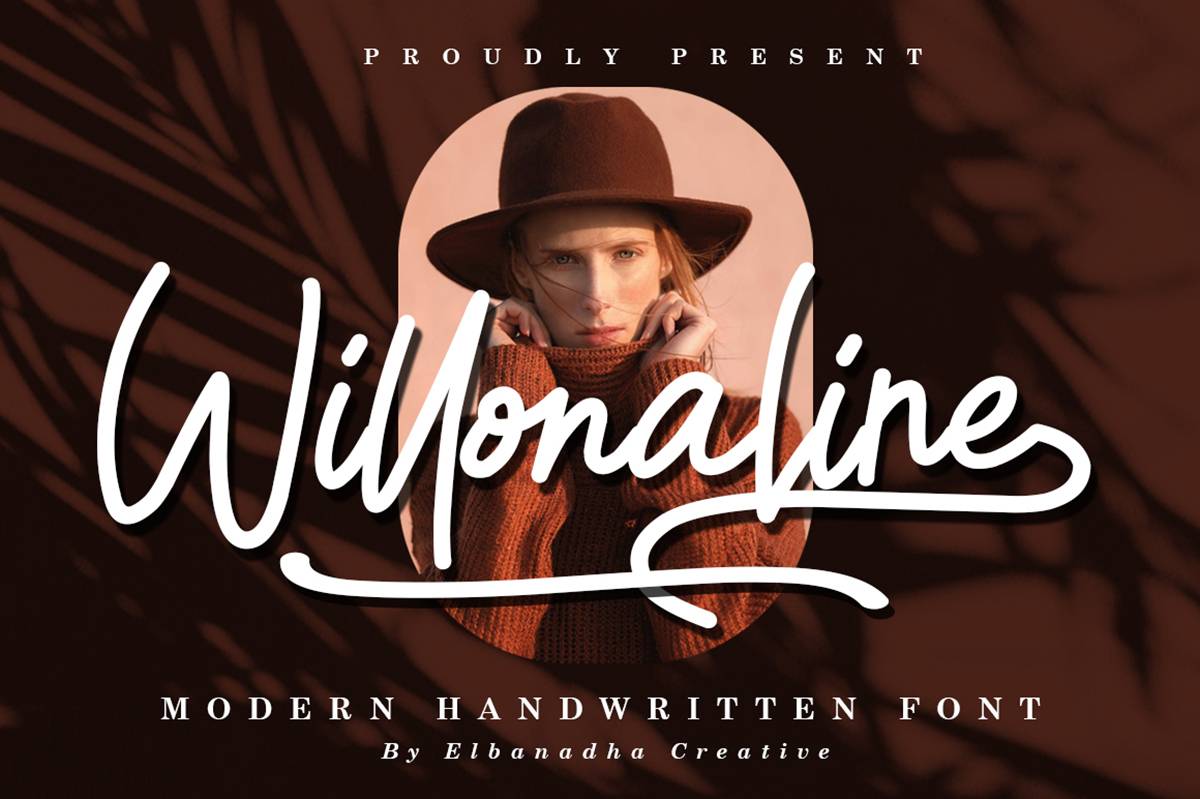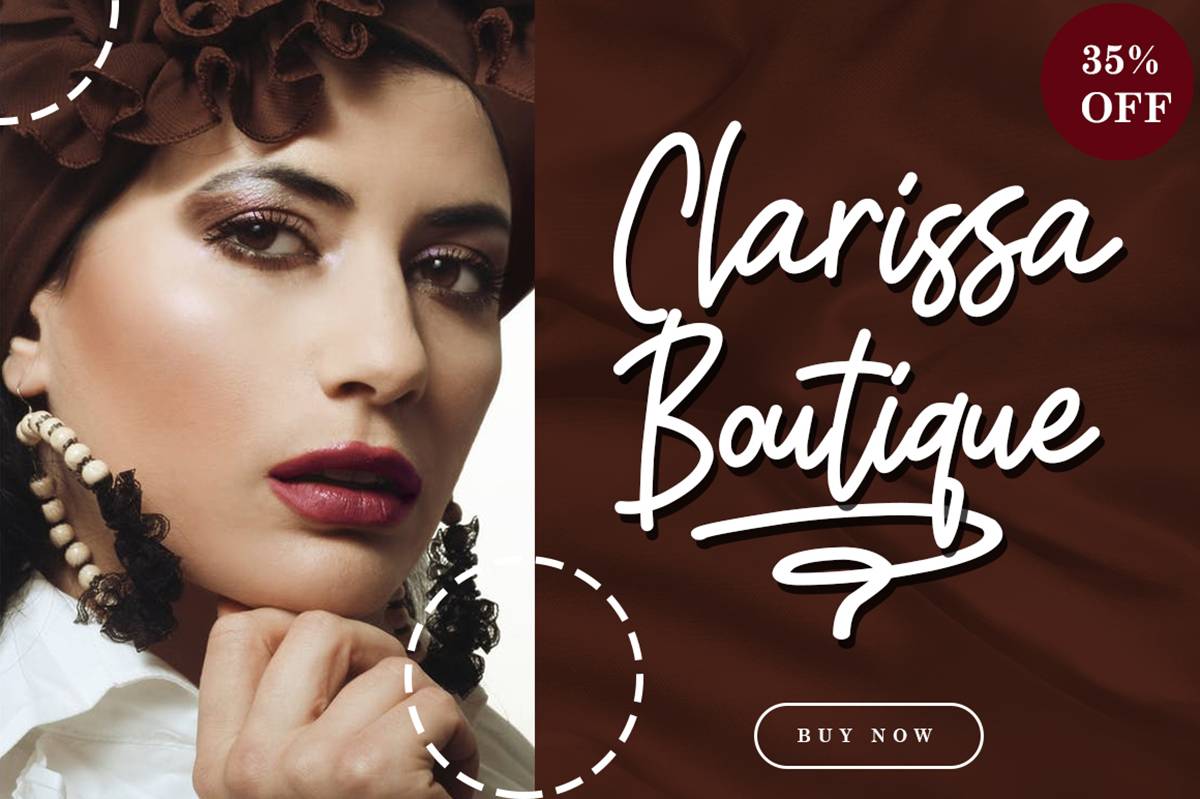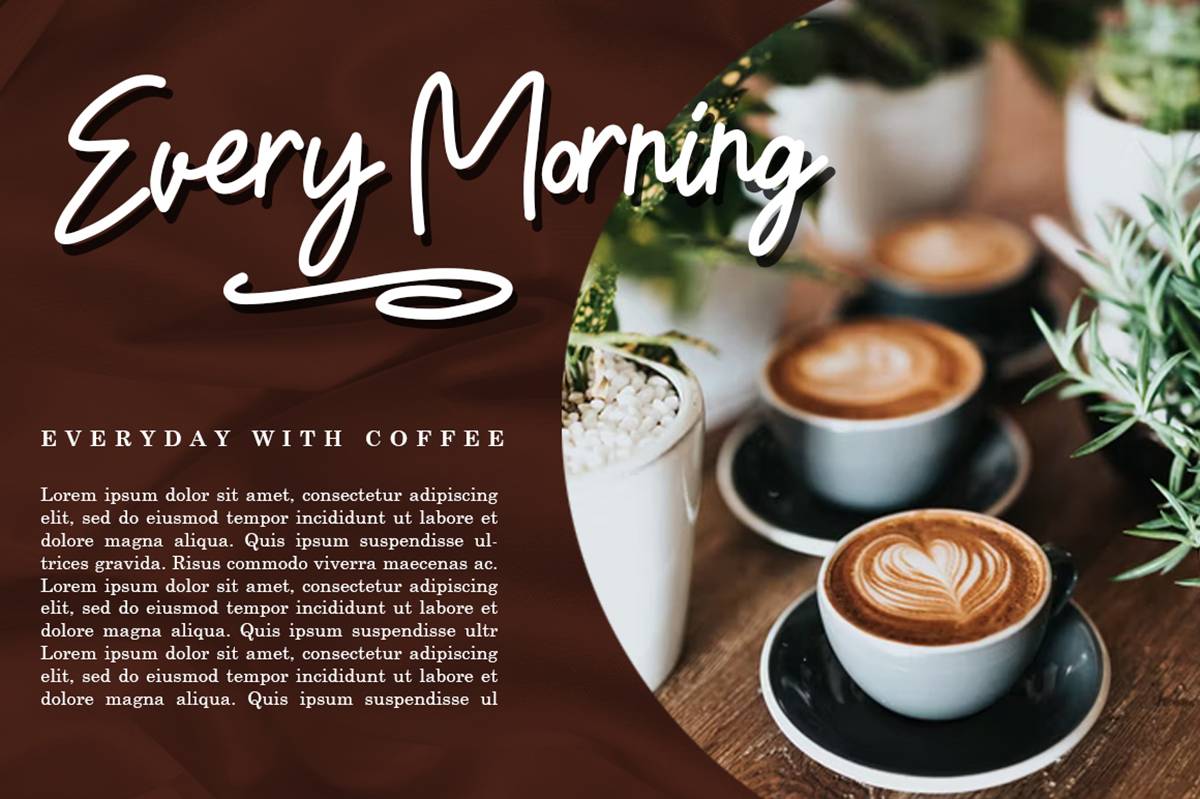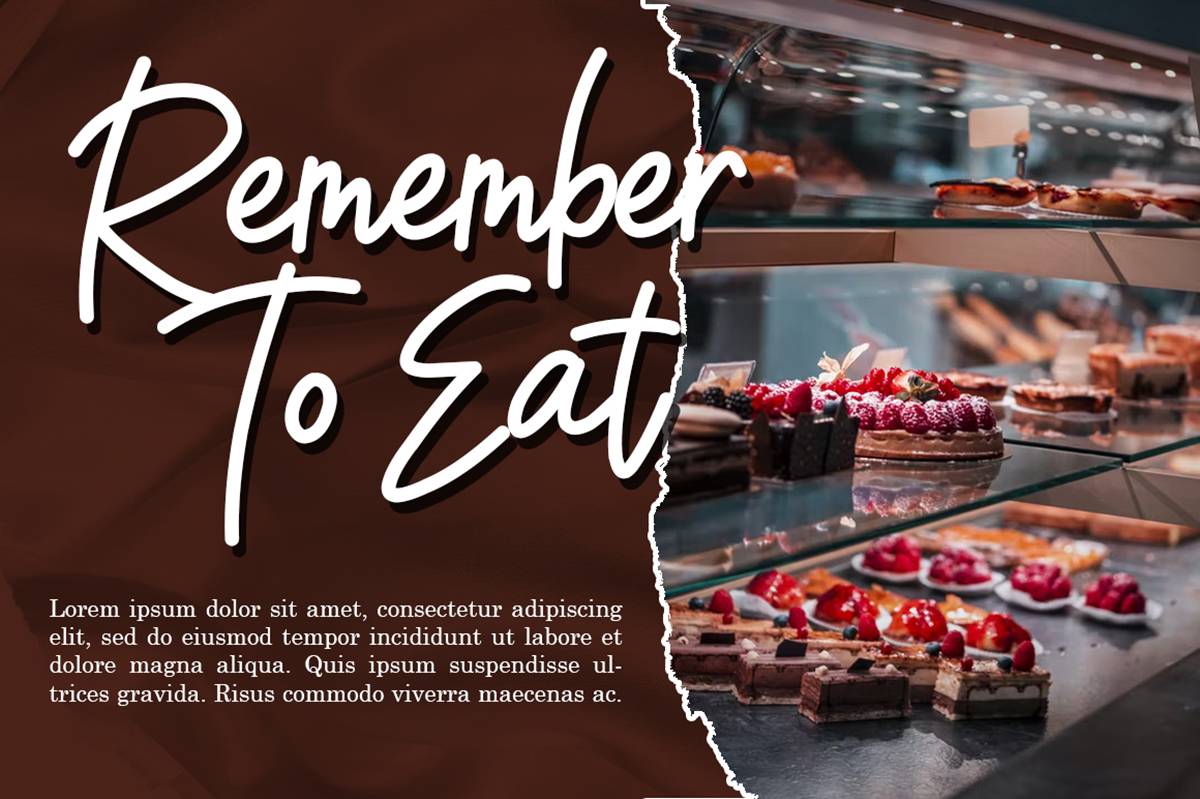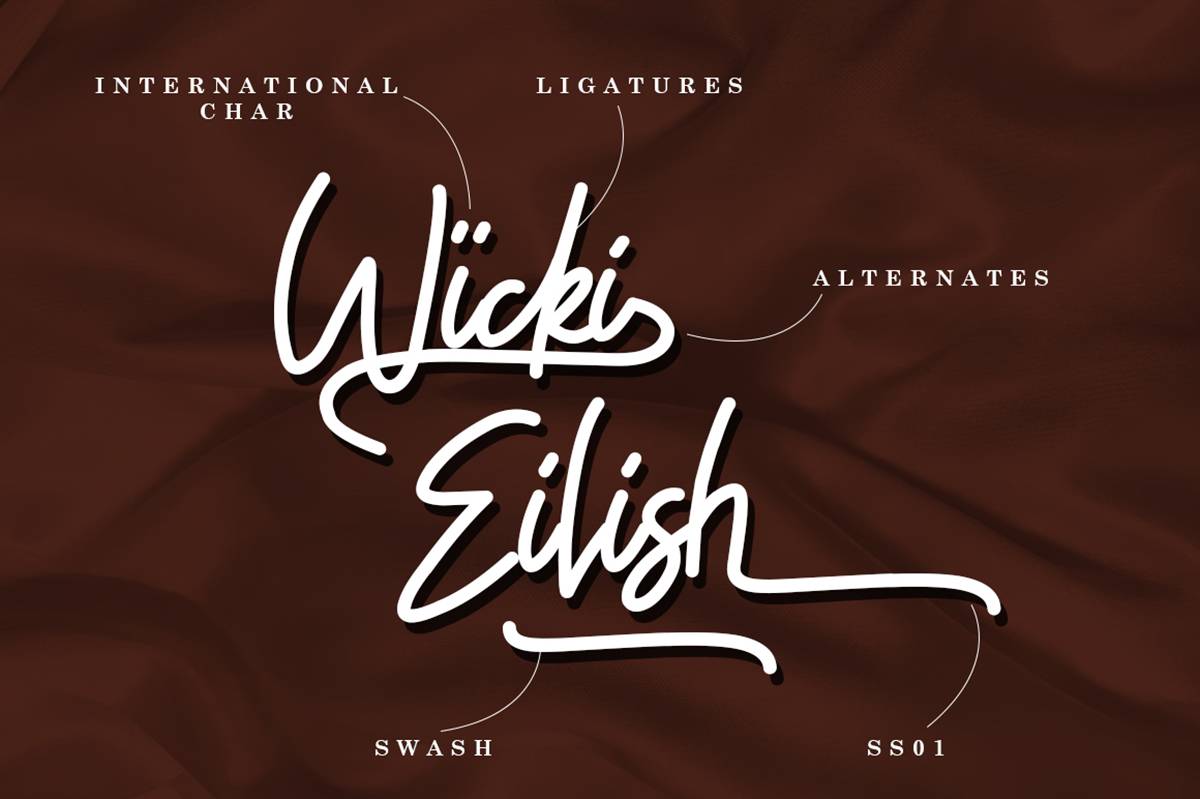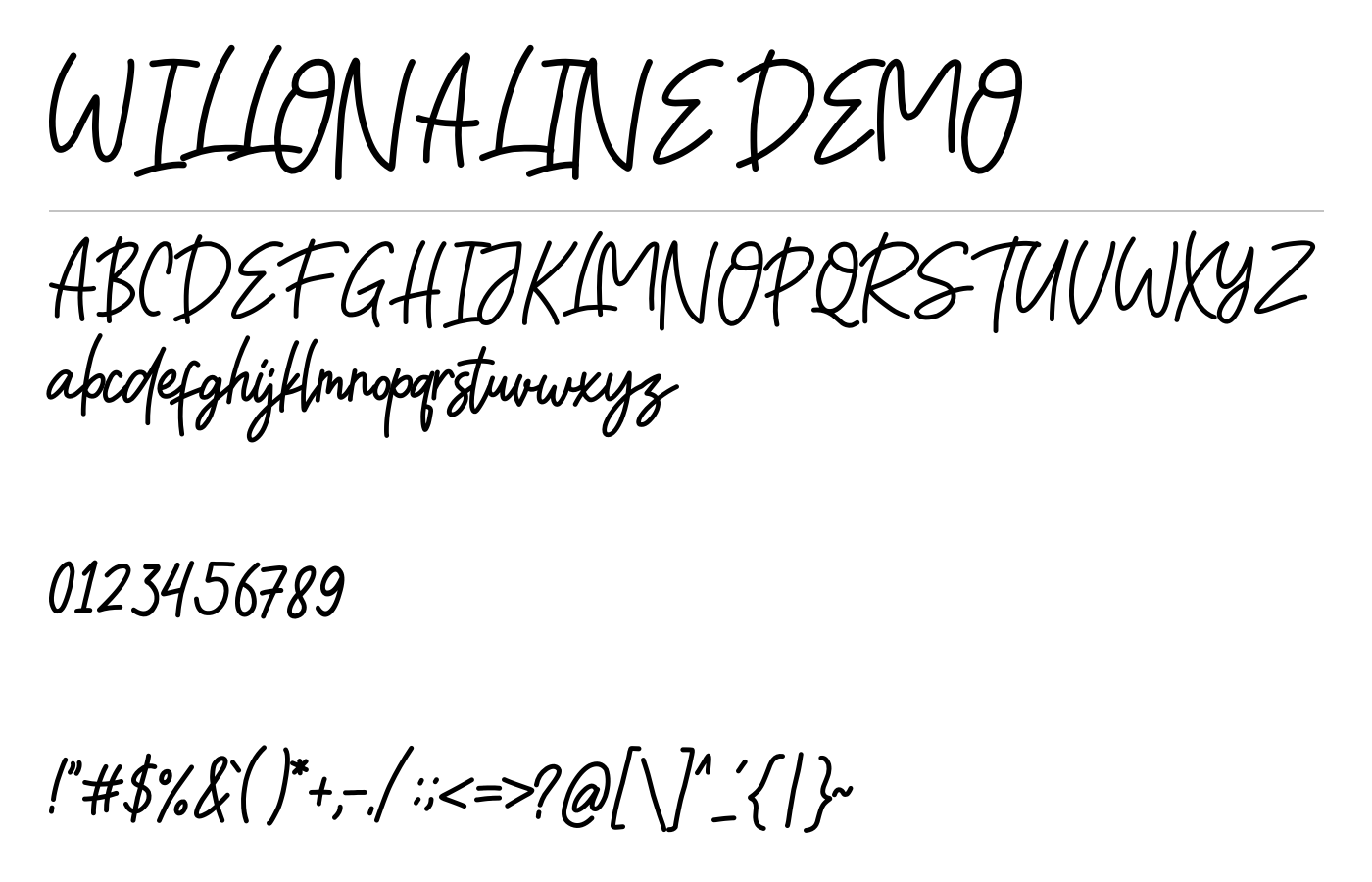
Willonaline is a playful and casual handwritten font featuring slender, slightly irregular strokes that give it a natural, personal touch. Its tall x-height and flowing letterforms make it ideal for creative projects, invitations, and branding that seeks a friendly, approachable vibe. This font works well for headlines and expressive design elements where an informal, artistic style is desired.
Willonaline Font
About Willonaline Font
| Font family | Willonaline Font |
| Release date | 2022-01-27 |
| Designer | Elbanadha Creative |